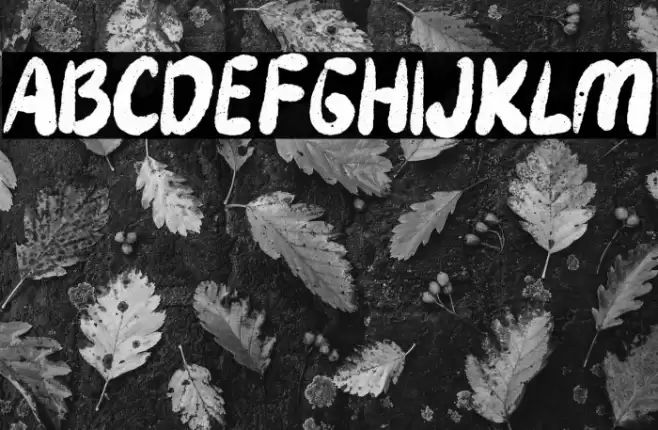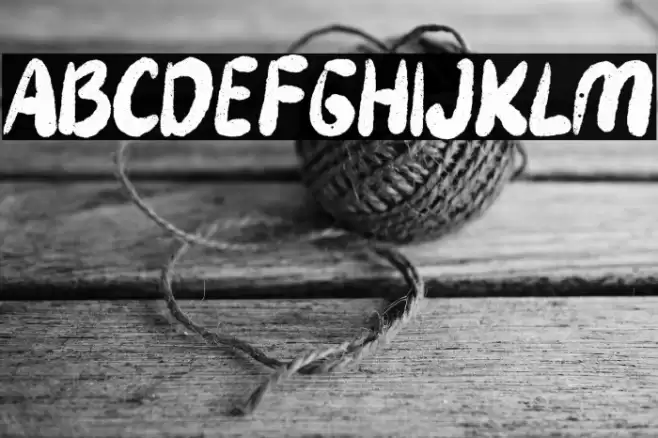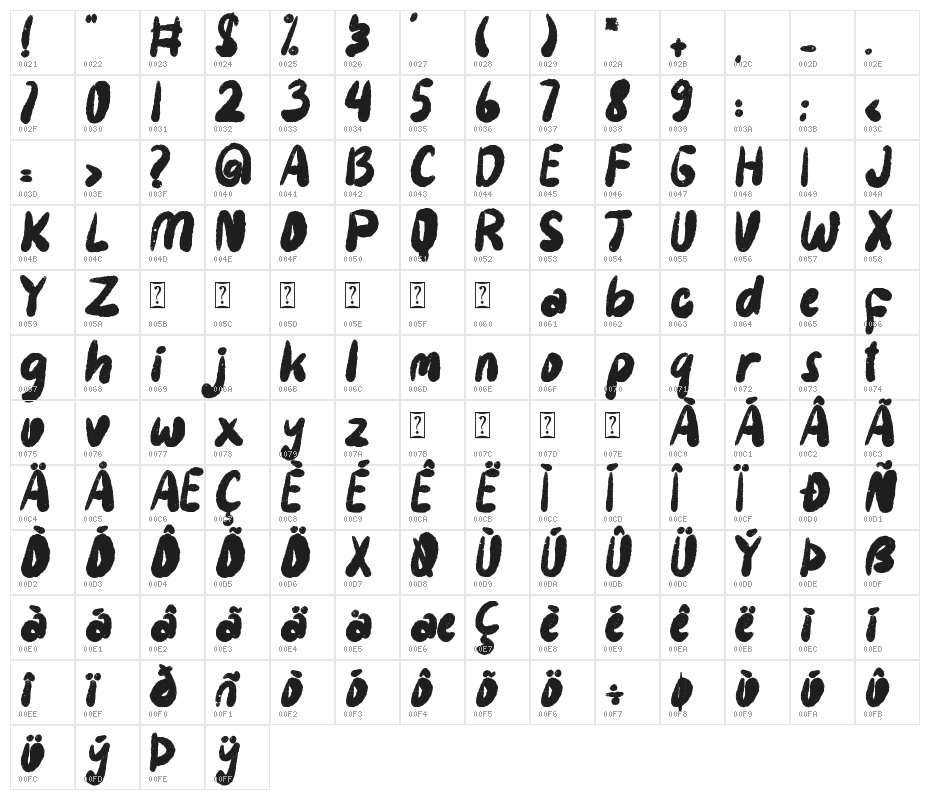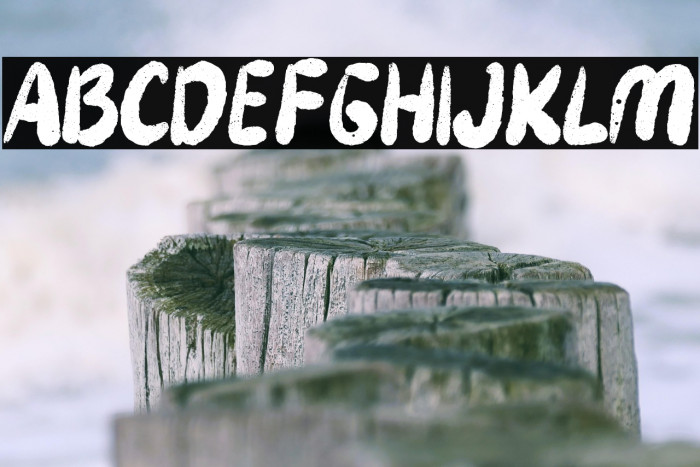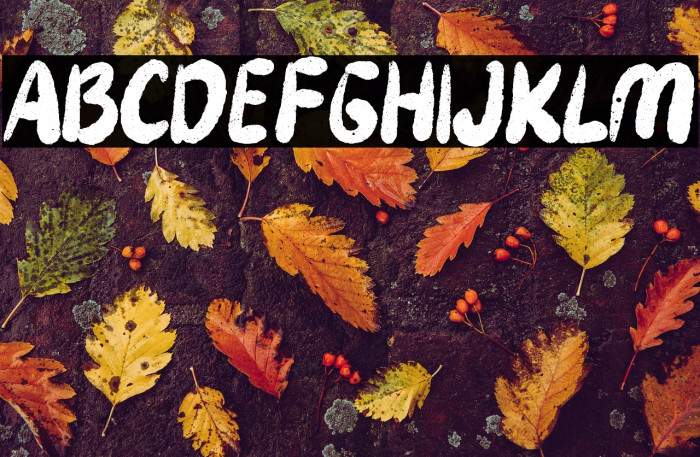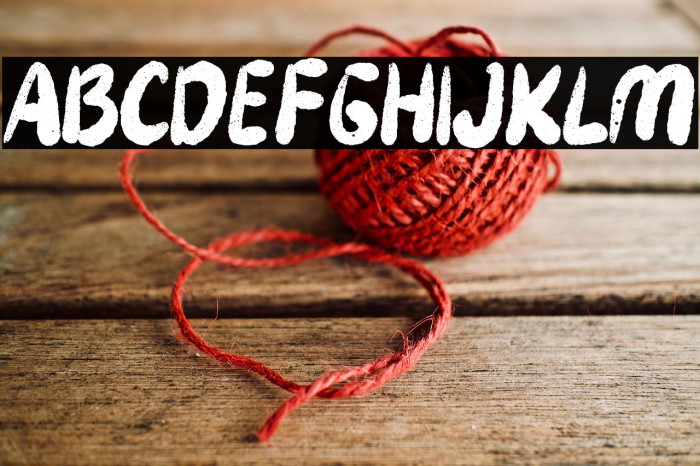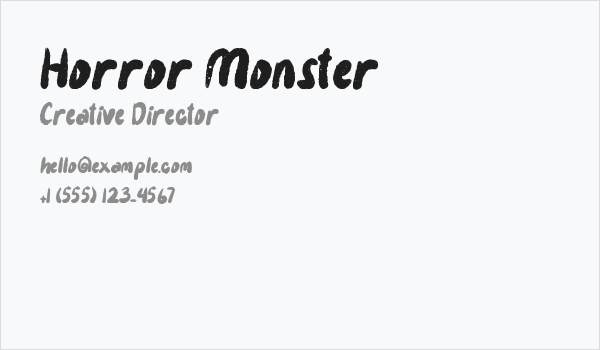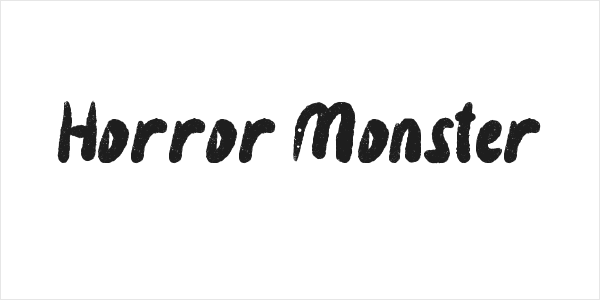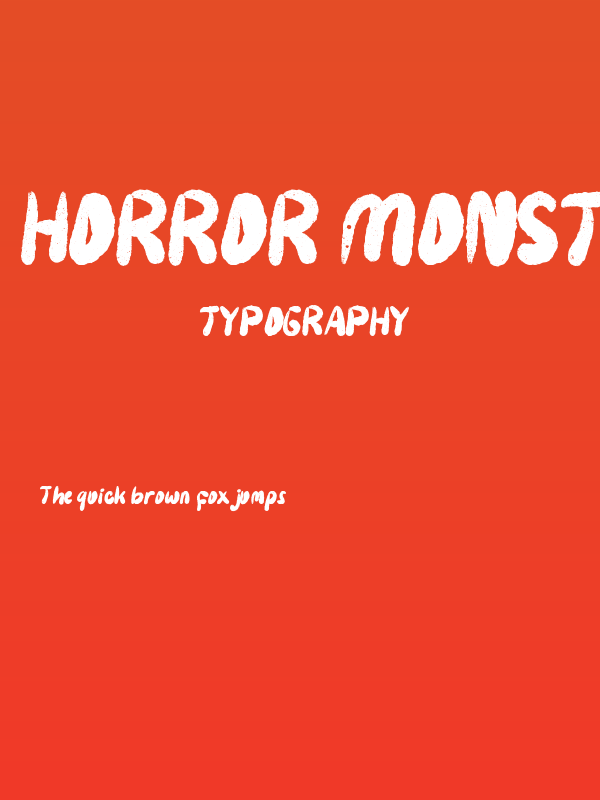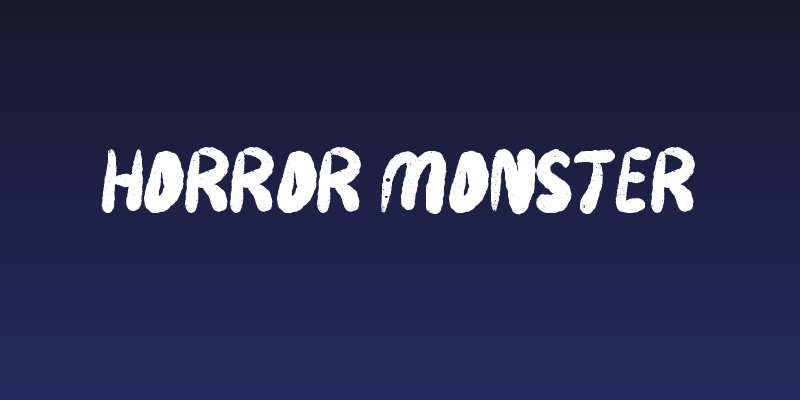
Horror Monster Font
Horror Monster Description
This font exudes a bold and playful character with its thick, uneven strokes and slightly irregular shapes. The letters have a hand-drawn, textured appearance that gives them a dynamic and energetic feel. The uppercase and lowercase characters maintain a consistent style, with rounded edges and a slightly compressed form. The numbers and special characters follow the same aesthetic, adding to the font's cohesive look. Its unique style makes it stand out, perfect for projects that require a touch of whimsy and creativity.
A bold, hand-drawn font with textured, playful characters from Uncategorized fonts.
- Font: Horror Monster
- Proposed Projects: Ideal for horror-themed posters, Halloween invitations, comic book titles, or any project needing a quirky, eye-catching typeface.
- Width: Condensed
- Overall Style: Decorative
- Use Case: Headlines, Posters, Logos